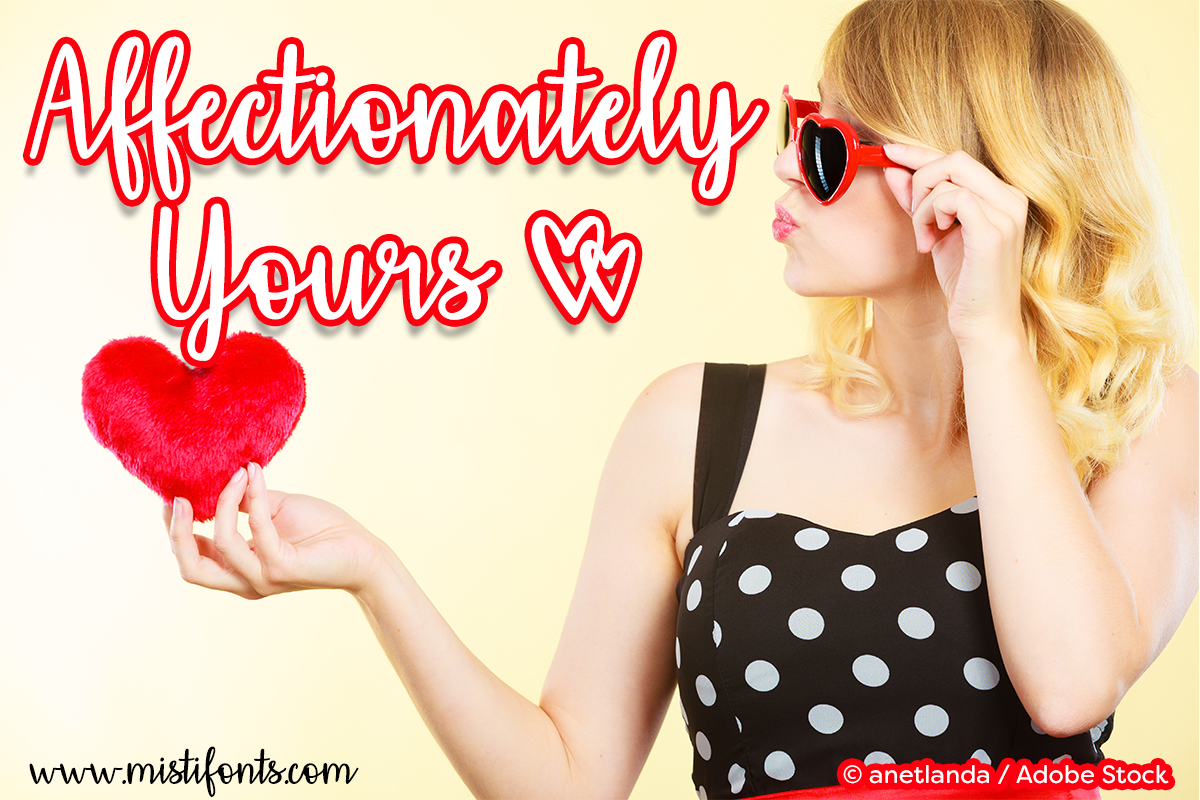
Affectionately Yours is an affectionate calligraphy font that is perfect for your craft and design projects!Special Symbols:Type * (asterisk) for the hearts